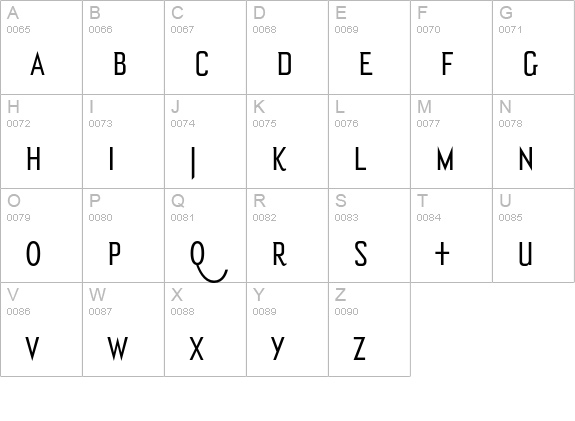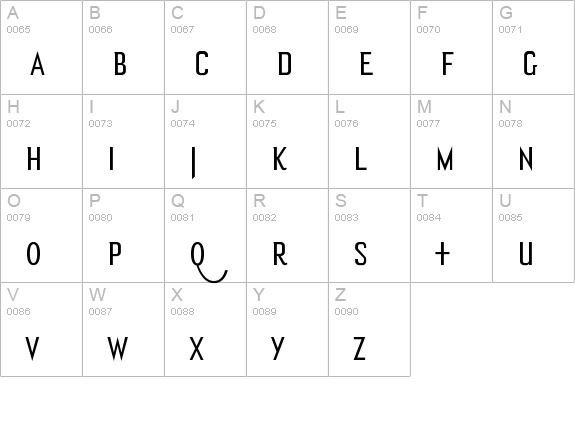
Bourgeois BookCondAlt Font Details
Bourgeois BookCondAlt font is a sophisticated and elegant typeface that exudes a sense of luxury and refinement. With its sleek and streamlined design, this font is perfect for conveying a sense of sophistication and professionalism in your projects. The condensed alternate version adds a unique twist to the classic Bourgeois Book font, making it stand out even more. What sets Bourgeois BookCondAlt font apart is not only its impeccable design, but also the fact that it is freely available to download at FontsMarket.com. This means that you can easily access this stunning font without any cost, making it a versatile and budget-friendly choice for your design needs. Whether you're working on branding materials, editorial layouts, or any other design project that requires a touch of elegance, Bourgeois BookCondAlt font is sure to elevate your work to the next level. Download it for free today and start creating stunning designs with this exquisite typeface.